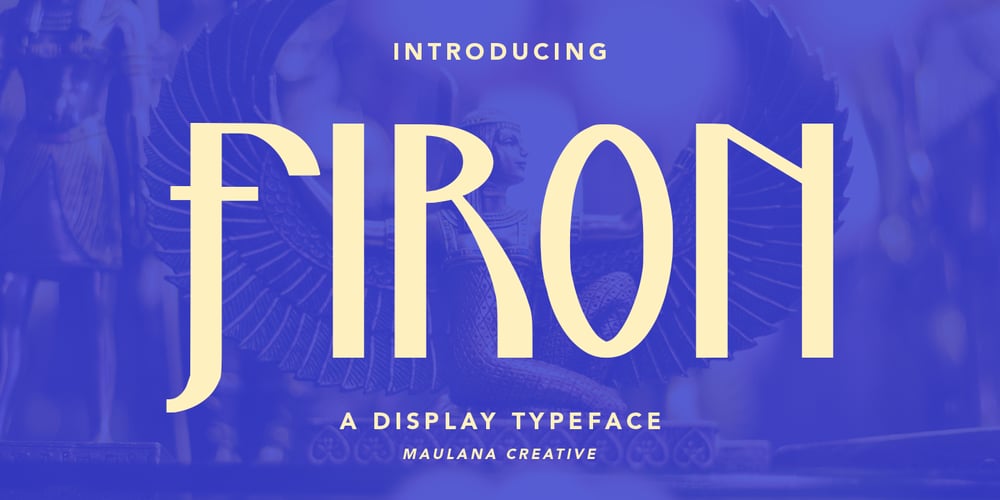
Firon
Firon font
Firon Font Family was designed by Gilang Maulana and published by Maulana Creative. Firon contains 1 styles and family package options. Firon is a modern Decorative Display font. Bold strokes, fun character with a bit of ligature and alternates. To give you extra creative work. Firon font support multilingual more than 100+ language. This font is good for logo design, Social media, Movie Titles, Books Titles, short text even long text letters, and good for your secondary text font with script or serif. Make stunning work with Firon font.This is all caps font style.Cheers,Maulana Creative